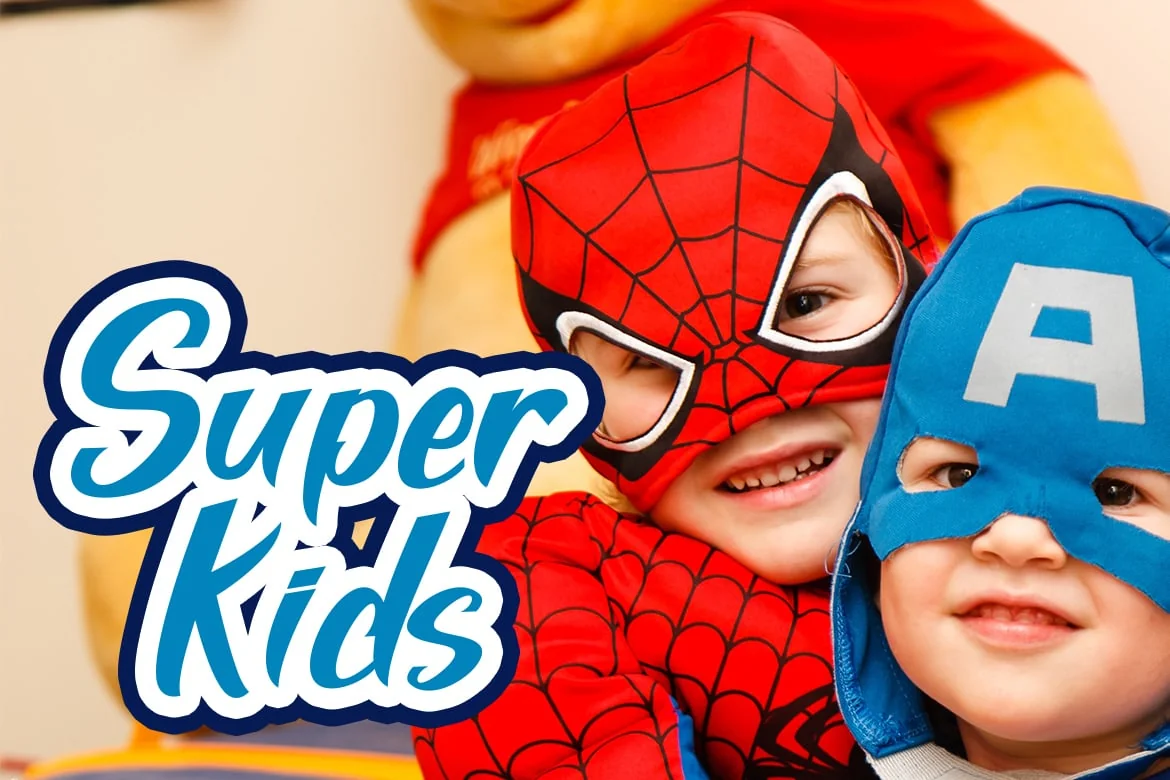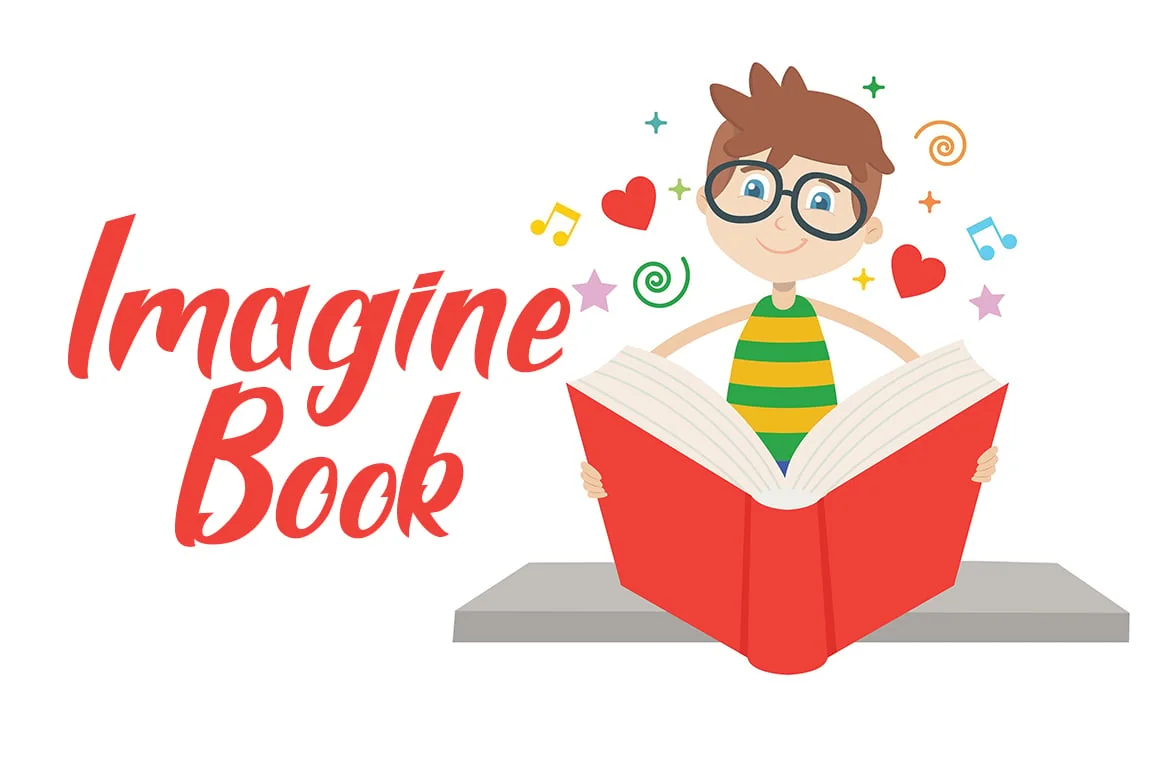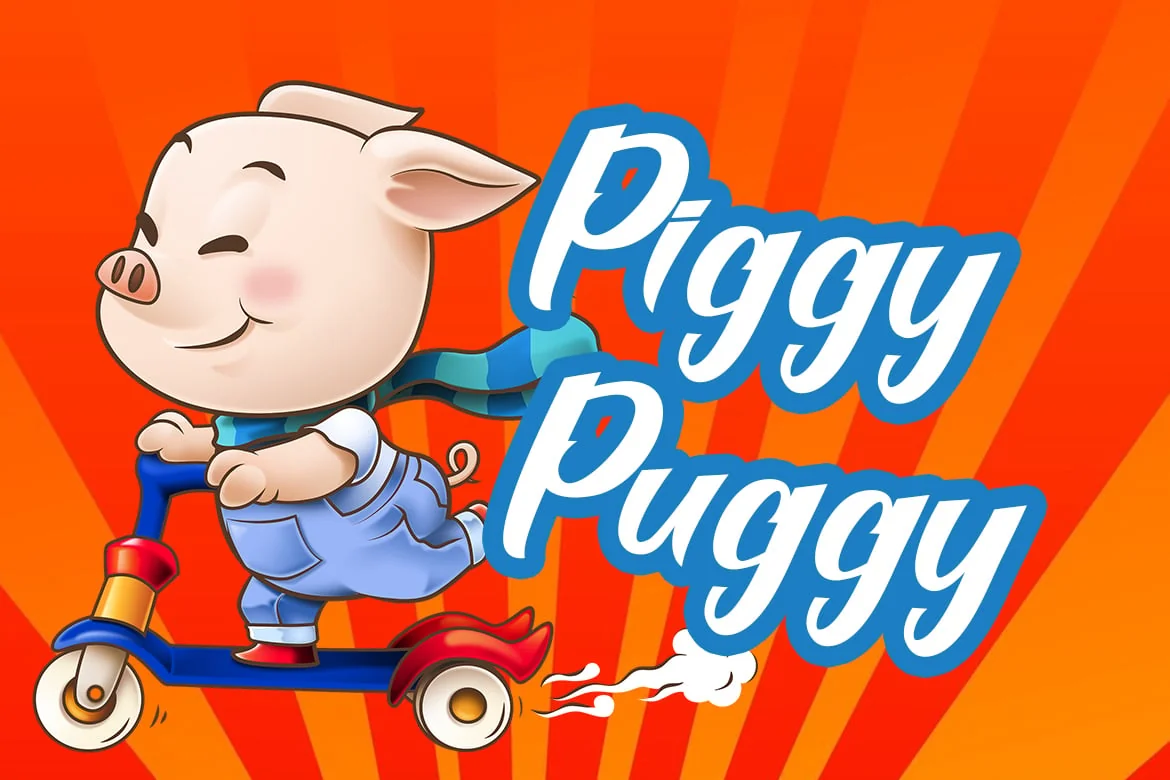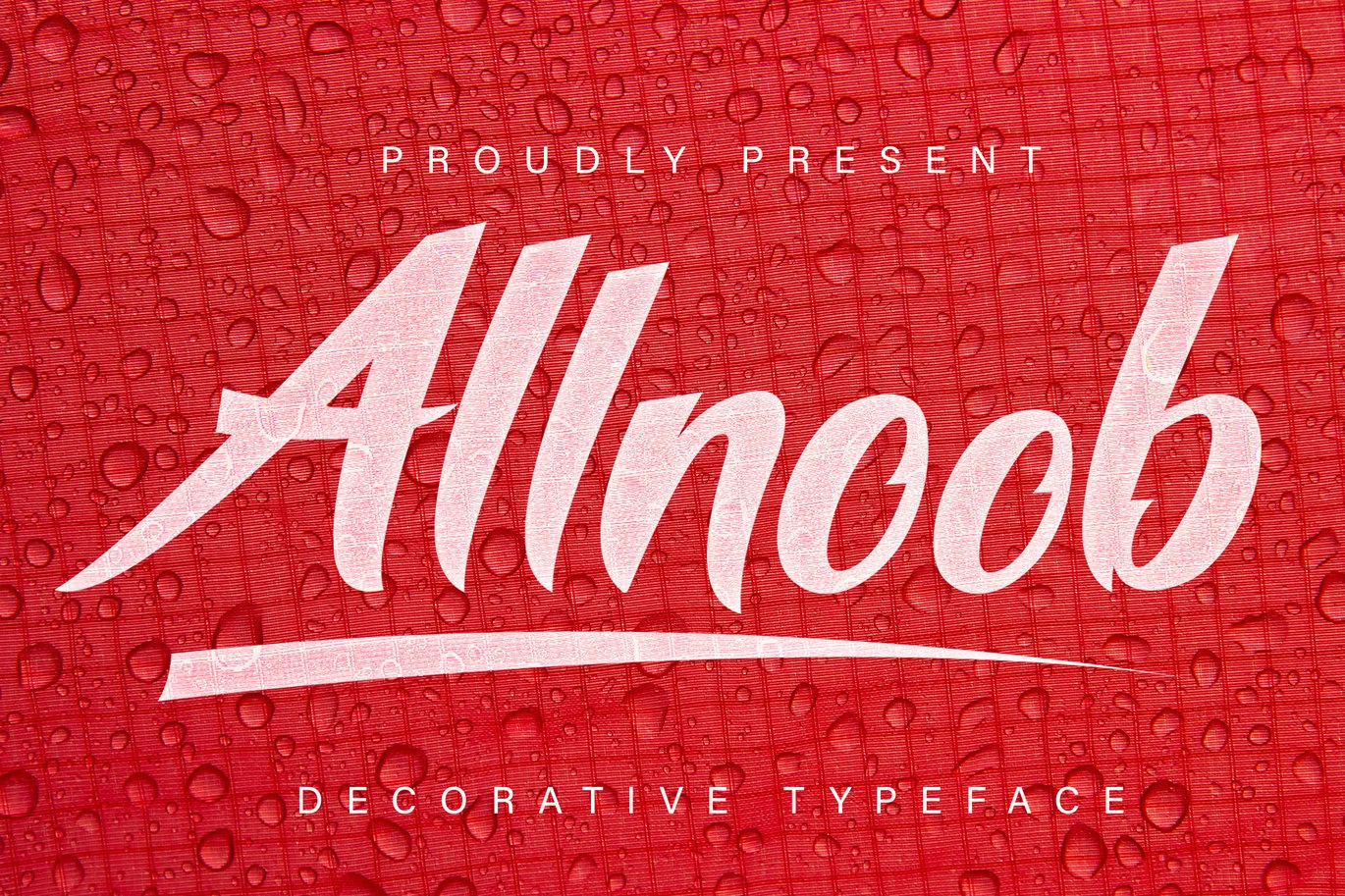
Allnoob Decorative Font
Allnoob Typeface is one of the elegant decorative fonts neatly arranged and cool, you can also use it for business, clothing, movie titles, and more
Ligature
Basic Latin Language Support (AÀÁÂÃÄÅCÇDÐEÈÉÊËIÌÍÎÏÑOØÒÓÔÕÖUÙÜÚÛWYÝŸÆß )